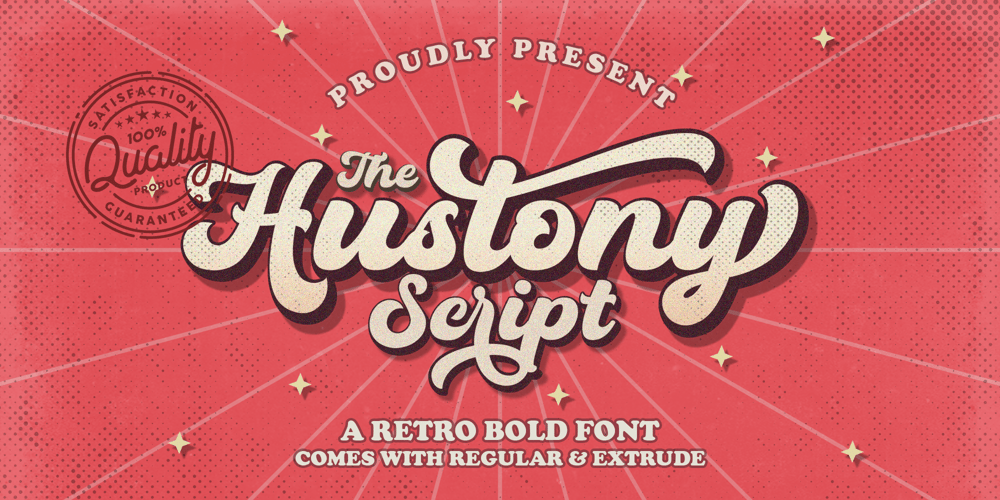
Hustony Extrude
Hustony Extrude font
Hustony Extrude Font Family was designed by Muhammad Mujibulloh and published by MJB Letters. Hustony Extrude contains 2 styles and family package options. Hustony is a layered retro bold script that comes with a regular and extrudes version which will make it easier for you to make a retro effect on a design, this font is designed carefully to be used for many purposes such as logo design, poster design, branding, labels, covers, magazine, wedding design, fashion design and more.You will get : Hustony Regular Hustony Extrude In order to use the beautiful swashes, you need a program that supports OpenType features such as Adobe Illustrator CS, Adobe Photoshop CC, Adobe Indesign, and Corel Draw. but if your software doesn’t have a Glyphs panel, you can install additional swash font files:if you have questions about the latest fonts, please provide a short message to usThank You!MJB Letters